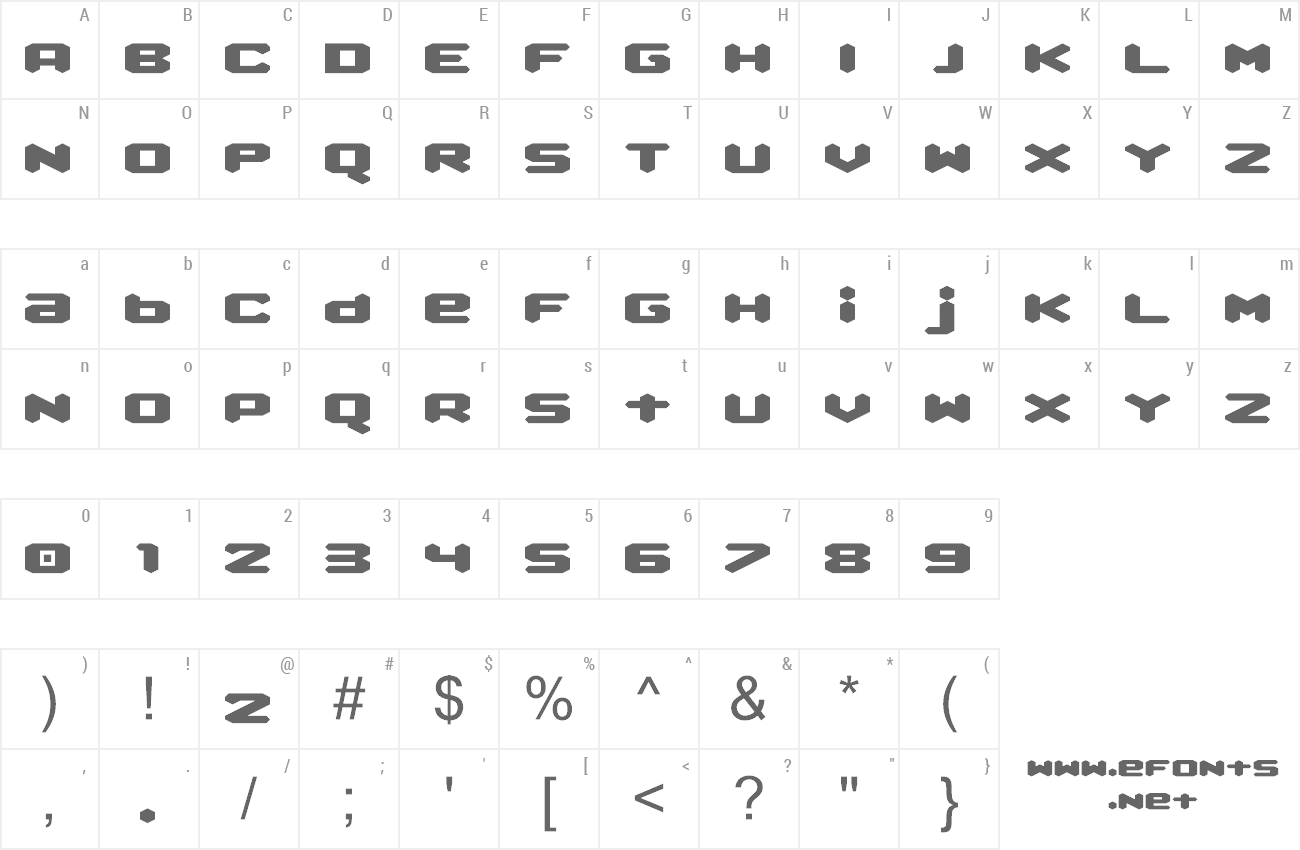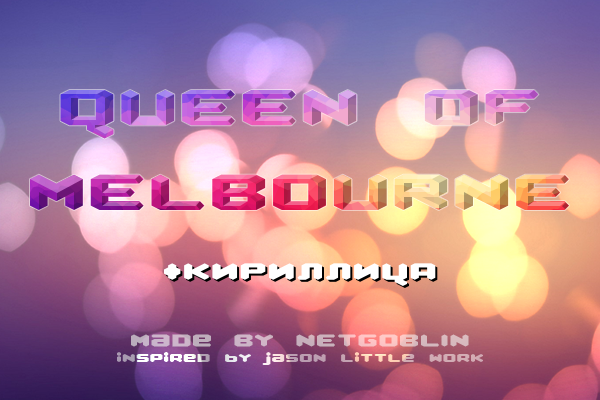
| Font name: | Queen of Melbourne |
| Author: | netgoblin |
| Note by netgoblin | |
Couple of years ago I found a logo design 'City of Melbourne' by Jason Little, that with a big M. I liked it so much... so, nowadays I made a font of it! Language support: Basic Latin, Basic Cyrillic + Ukrainian glyphs, Digits. Feel free to enhance! |